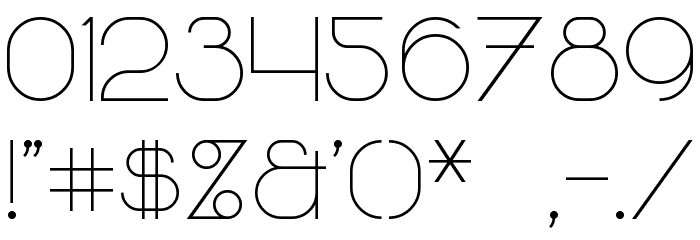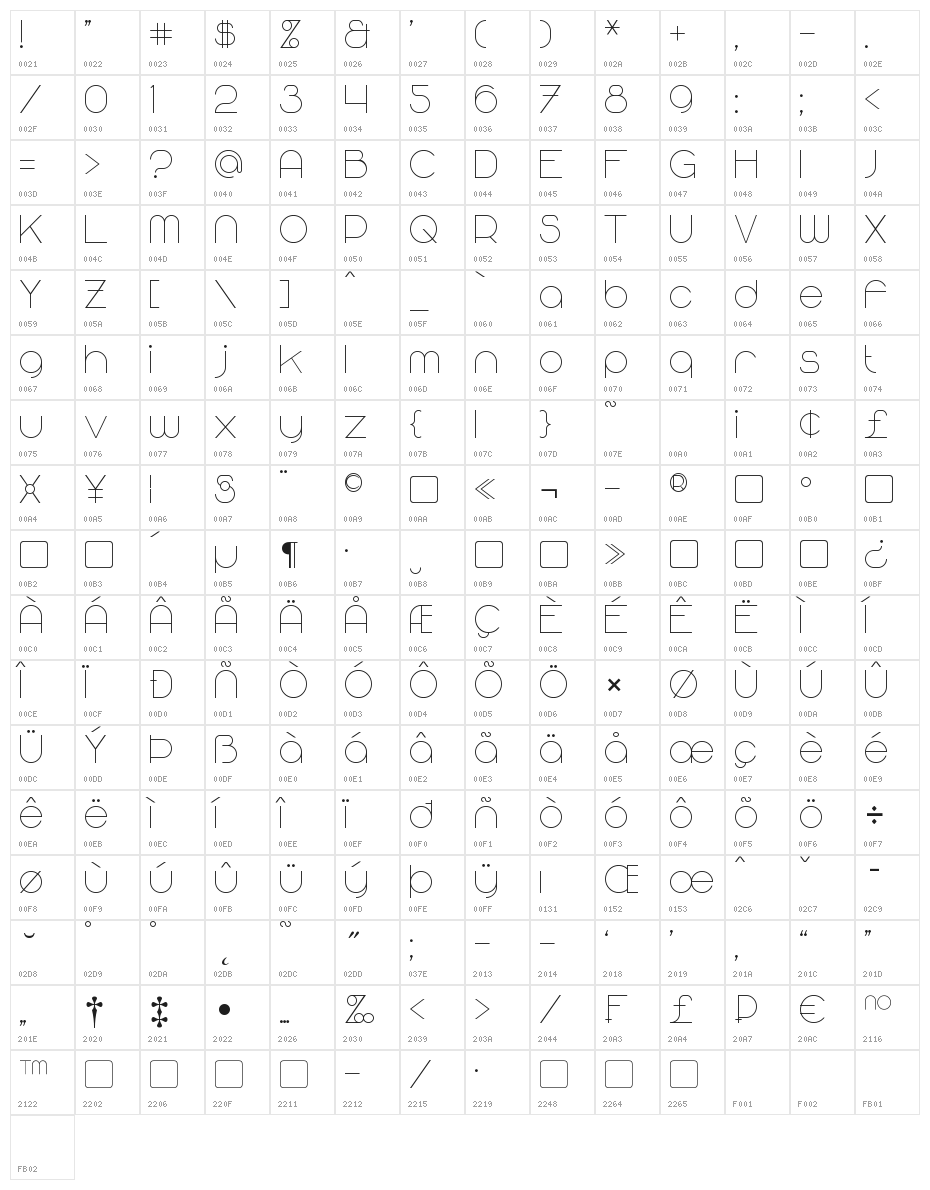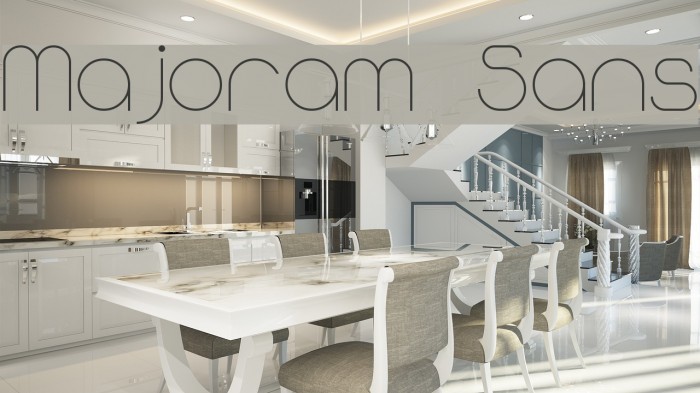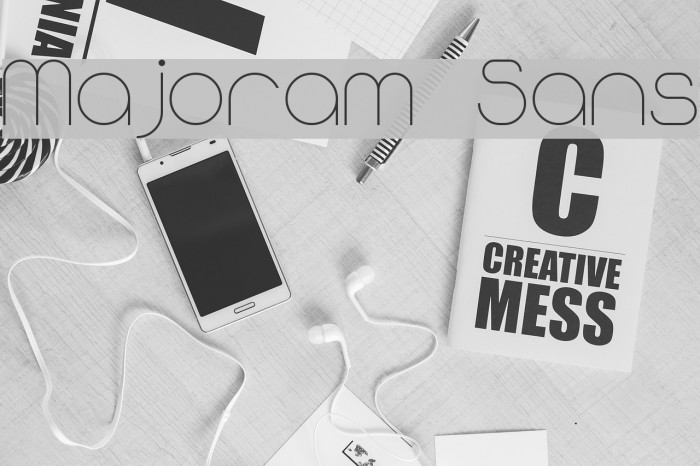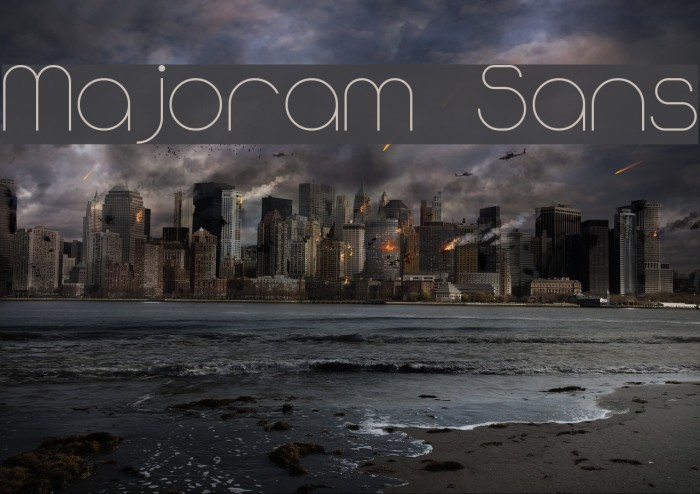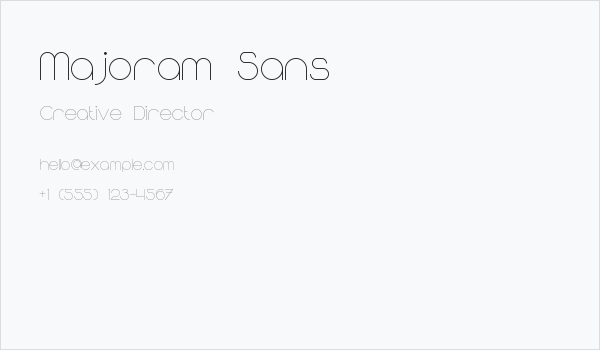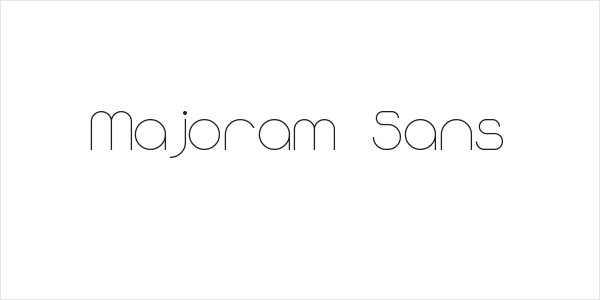
Majoram Sans Font
Majoram Sans Description
This font features a sleek and modern design with a geometric structure. The characters are composed of thin, uniform lines that create a minimalist and elegant appearance. The uppercase and lowercase letters maintain a consistent style, with rounded edges and open counters that enhance readability. The numerals and special characters follow the same design principles, ensuring a cohesive look across all elements. The overall aesthetic is clean and contemporary, making it suitable for a variety of design applications.